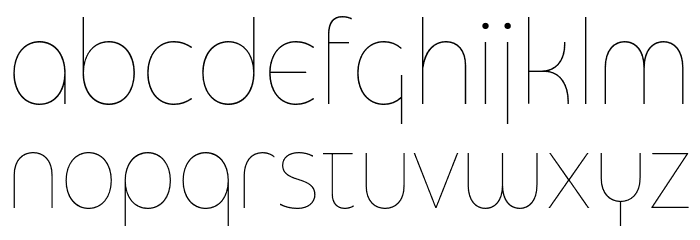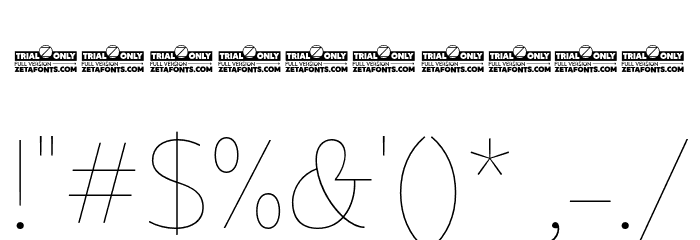
Eastman Grt Alt Trial Thin Font
This font features a sleek, minimalist design with thin, clean lines and a modern aesthetic. The characters are uniformly structured, offering a geometric and contemporary feel. The uppercase and lowercase letters maintain a consistent height and width, contributing to a harmonious appearance. The numerals and special characters are crafted with the same precision, ensuring a cohesive look across all text. Its simplicity and elegance make it suitable for a variety of design applications, providing a sense of sophistication and clarity.
A thin, modern font with a minimalist and geometric design.